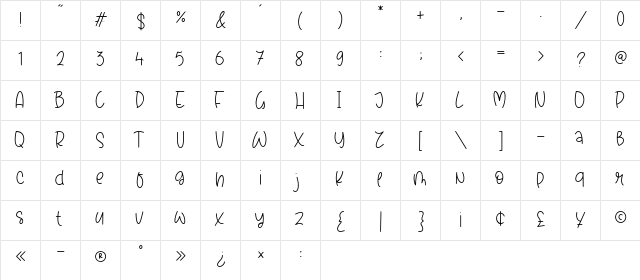
Dreamline Regular
| Designer | Balpirick Studio |
Design Context for Dreamline Typeface
Dreamline takes a measured approach to typography — its balanced proportions and neutral character make it a reliable workhorse for both digital and print work.
Pro Tip: Use Dreamline in both headline and body roles to test its range before committing to a single application.